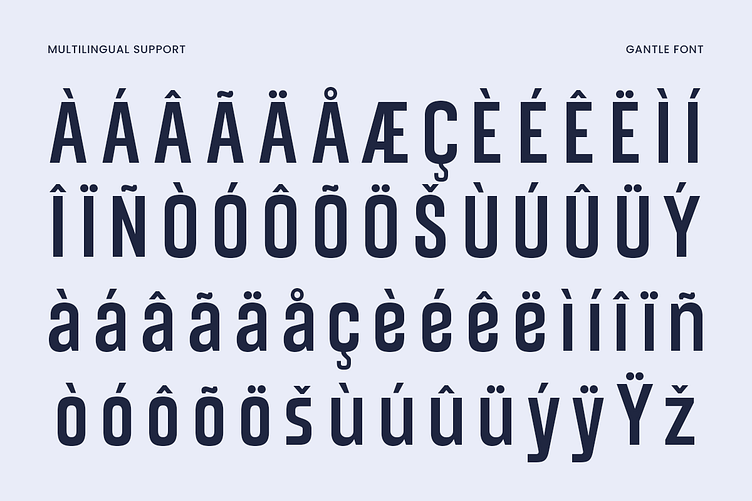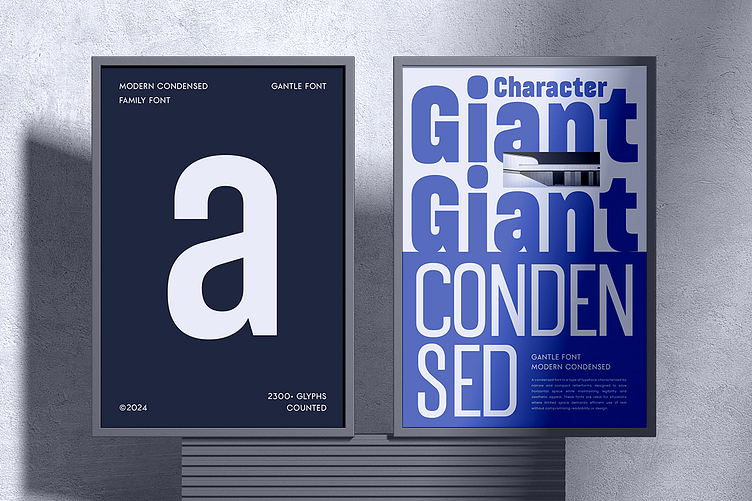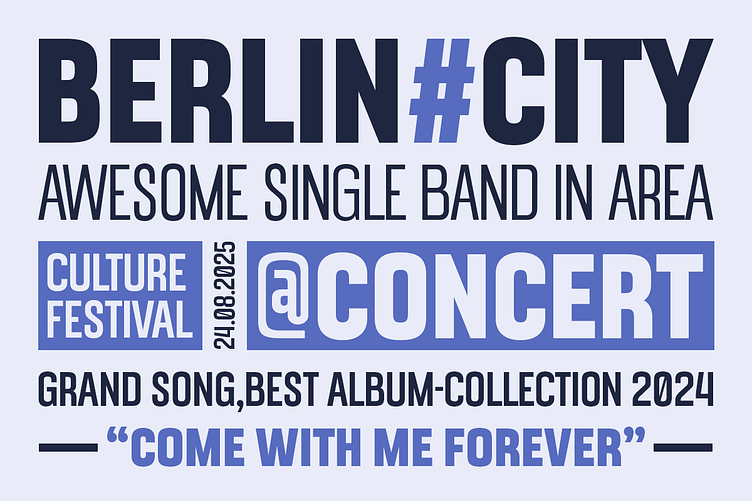
Gantle – Sleek Condensed Font for Modern Minimalist Brands 🧩
Say hello to Gantle, a sleek and minimal font family designed with precision and clarity in mind. Crafted in a modern, condensed style with subtle rounded rectangle forms, Gantle is built for brands and designers who value clean structure and versatility.
🛠️ The Story Behind Gantle We created Gantle to solve a design challenge: how do you fit more impact into less space—without sacrificing elegance? Inspired by modern layouts and packaging systems, Gantle blends condensed proportions with rounded corners, giving it a soft, minimalist edge that works beautifully in tech branding, UI design, posters, and editorial headlines.
✨ Why Use Gantle?
✔️ Modern & Condensed – for clean, space-efficient layouts
✔️ Rounded Rectangle Style – minimal but approachable
✔️ Great for logos, packaging, signage, and bold typography systems